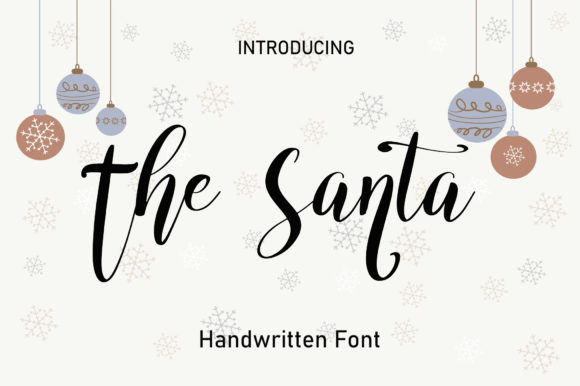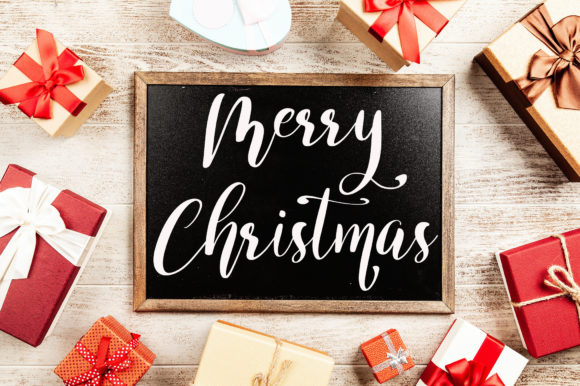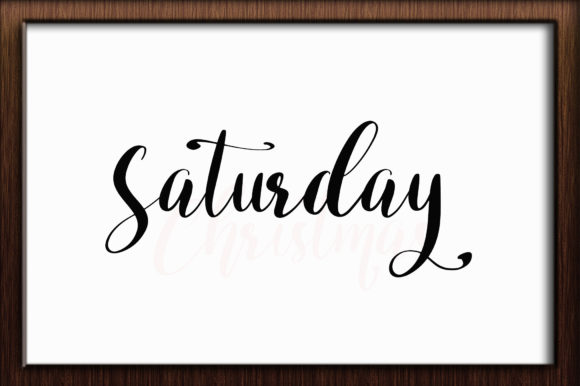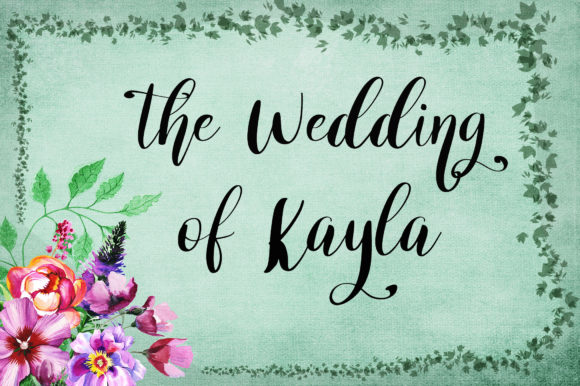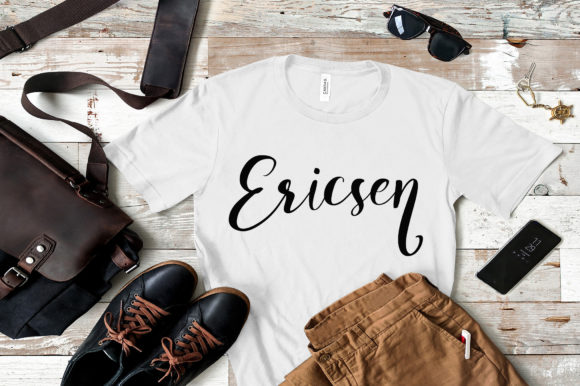
The Santa Font
About The Santa Font
The Santa is an adorable and charming handwritten font that has been meticulously crafted to capture your heart and become an instant favorite. Drawing inspiration from elegant calligraphy, this font effortlessly blends timeless sophistication with a modern and refreshing twist. Its versatility lends itself perfectly to a diverse array of creative projects, making it a go-to choice for a variety of design endeavors.
With its cute and endearing appearance, The Santa exudes a sense of warmth and approachability. Its handcrafted nature adds a personal and authentic touch to your designs, making them stand out and resonate with your audience. The font’s careful design ensures that it maintains a balance between its classy calligraphic influences and a contemporary, up-to-date feel.
The Santa’s adaptability shines through in its ability to seamlessly integrate into different design contexts. Whether you’re working on letterheads, titles, stationery, or any other crafty ideas, this font is a versatile companion that elevates the overall aesthetics of your projects. Its charming strokes and unique letterforms bring a sense of character and originality to every piece you create.
One of the standout features of The Santa is its ability to convey a sense of timelessness while also staying relevant in modern design trends. The font’s combination of classic and contemporary elements makes it a versatile choice for a wide range of applications. It effortlessly transitions between formal and casual designs, making it suitable for both elegant invitations and playful stationery.
The Santa’s handwritten quality adds a touch of authenticity and personality to your work. Its carefully crafted curves and intricate details showcase the dedication and craftsmanship that went into its creation. This attention to detail ensures that each character is a work of art on its own, contributing to the font’s overall visual appeal.
As you explore the possibilities of The Santa, you’ll discover its ability to breathe life into your projects and infuse them with a sense of whimsy and elegance. Whether you’re designing for print or digital media, this font has the power to captivate your audience and leave a lasting impression. Its versatility allows you to experiment with different design elements, ensuring that your creations are as unique and captivating as your imagination allows.
In conclusion, The Santa is a delightful and versatile handwritten font that strikes a perfect balance between classic calligraphy and contemporary flair. Its cute and carefully crafted appearance makes it a wonderful choice for a wide range of projects, from formal letterheads to playful stationery. With The Santa as your creative companion, you have the tools to bring your crafty ideas to life and leave a lasting mark on your audience.